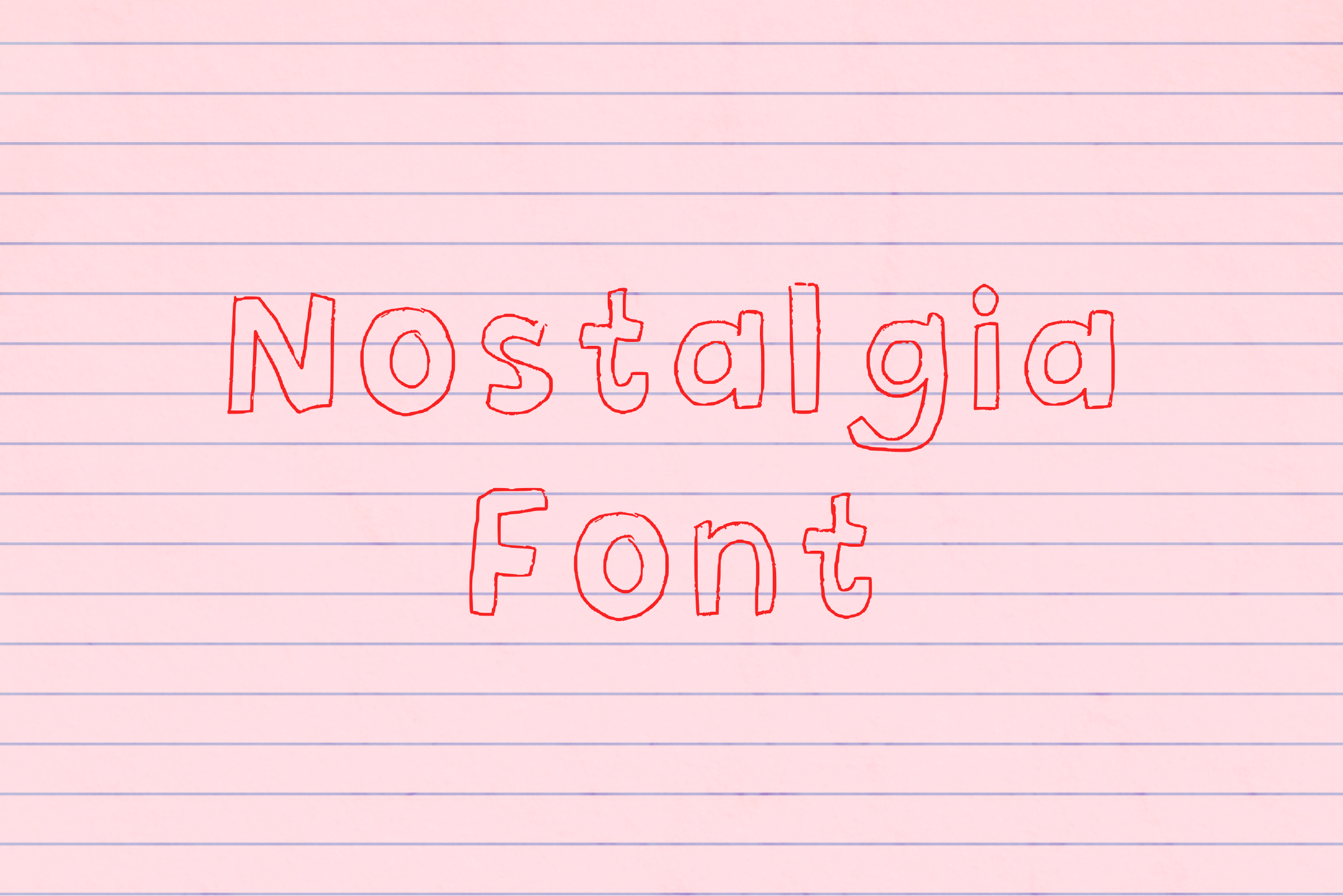
Nostalgia Aesthetic Handwritten Font
New hand-written fonts! Written with different pens and markers. Perfect for giving your project a more hand-made feel.
Thin Marker (Ball point pen) Font Medium Marker Font